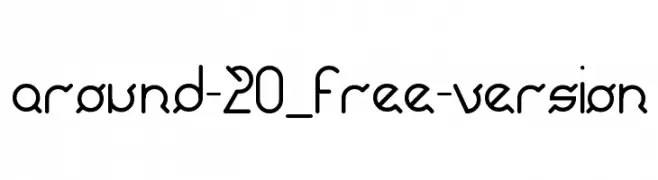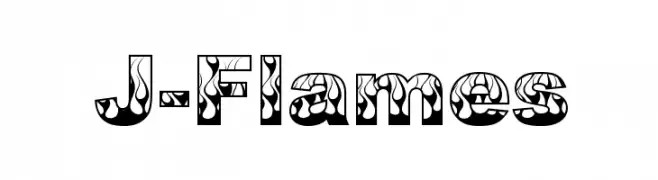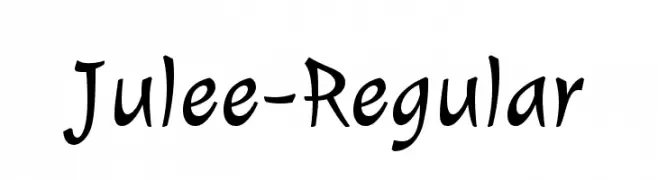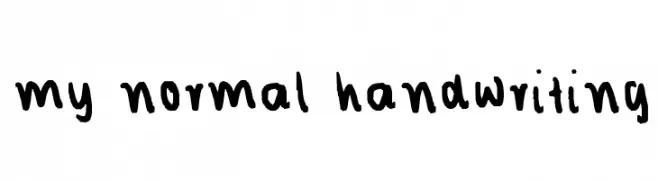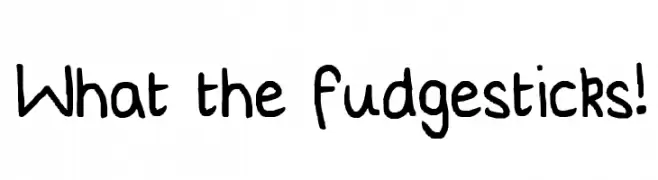
A bold, angular font with a gothic, geometric style.
A bold, brush-style italic font with dynamic, textured strokes.
A bold, brushstroke font with a dynamic and textured style.
A classic serif font with elegant, refined letterforms and moderate contrast.
A classic serif font with modern elegance and balanced proportions.
A bold slab serif font with a classic yet modern appeal.
A sleek, thin font with a modern and elegant design.
A rugged, textured font with a hand-drawn, distressed style.
A modern, bold sans-serif font with geometric influences and uniform stroke width.
Modern, slightly condensed sans-serif with geometric and humanist influences.
A modern, bold sans-serif font with geometric influences and excellent readability.
A bold, playful handwritten font with a casual and friendly style.
A casual, handwritten font with smooth curves and a friendly appearance.
A bold, hand-drawn font with a textured, artistic style.
A casual, handwritten font with playful curves and irregular strokes.
A bold, expressive handwritten font with high contrast and artistic flair.
A hand-drawn, sketch-style font with textured outlines.
A geometric, Hangeul-inspired font with bold lines and a modern, decorative style.
A geometric and minimalistic font with consistent stroke width and modern design.
A playful, hand-drawn font with a whimsical and informal style.
A modern sans-serif font with clean lines and geometric shapes.
A bold, modern sans-serif font with excellent legibility and balanced character spacing.
A modern sans-serif font with clean lines and balanced proportions.
A playful, bold, and rounded font with interconnected curves.
A playful, rounded font with smooth curves and a friendly appearance.
A modern serif font with clean lines and balanced structure.
A bold, classic font with rounded serifs and strong presence.
A bold, italic serif font with dynamic, forward-leaning characters.
A classic italic serif font with moderate contrast and elegant slant.
A modern, rounded font with a friendly and clean design.